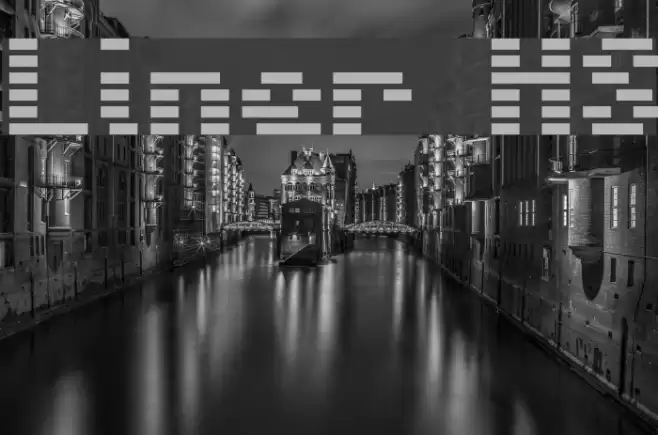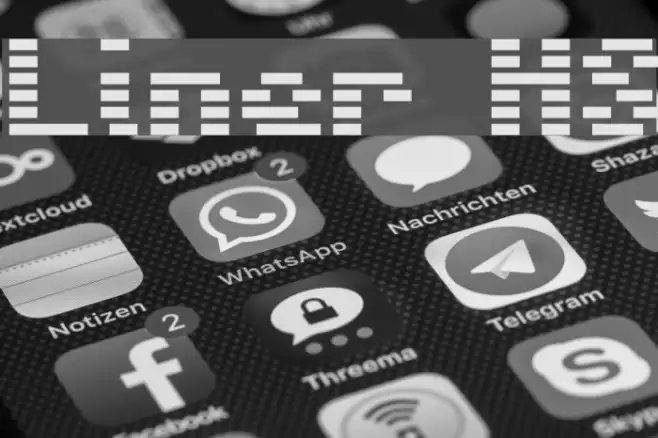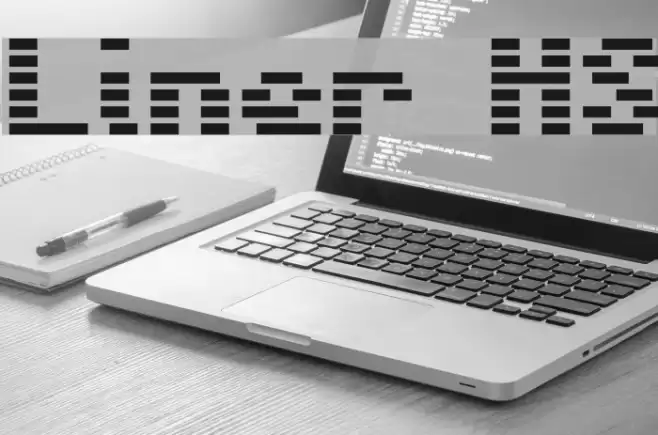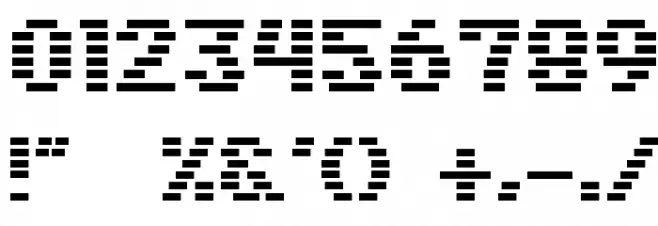
Liner HS Font
Liner HS Description
This font features a unique, modern design characterized by its segmented, linear style. Each character is constructed from a series of horizontal lines, creating a digital, futuristic appearance. The uppercase and lowercase letters maintain a consistent height, giving the font a uniform look. Numbers and special characters follow the same segmented pattern, ensuring visual cohesion across all elements. The font's geometric structure and bold presence make it ideal for attention-grabbing designs.
A segmented, linear font with a modern, digital aesthetic from Uncategorized fonts.
- Proposed Projects: Ideal for digital displays, tech-themed projects, futuristic branding, and modern posters.